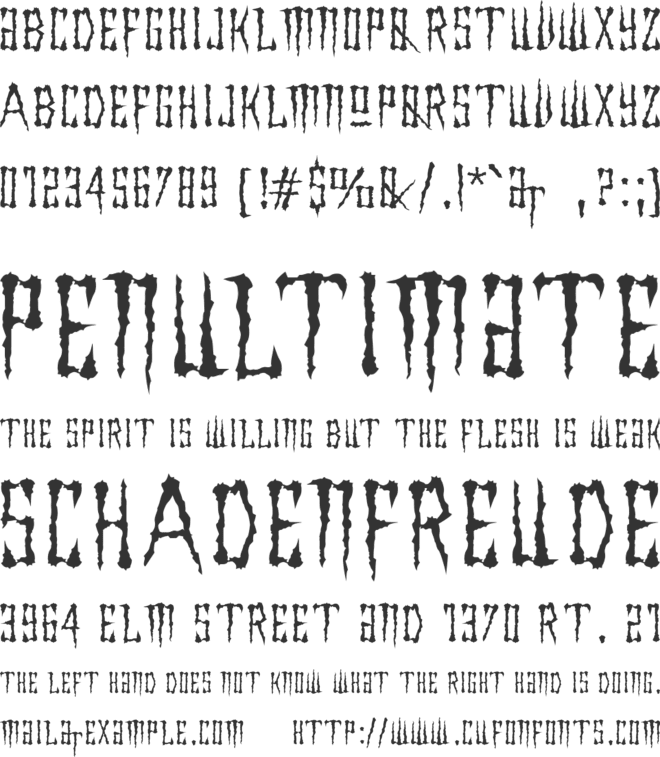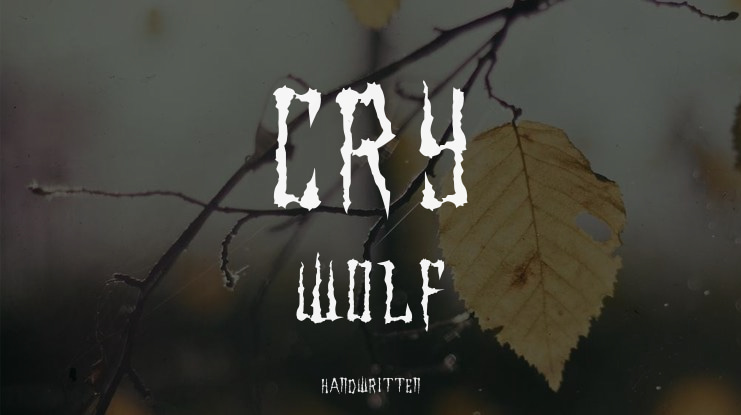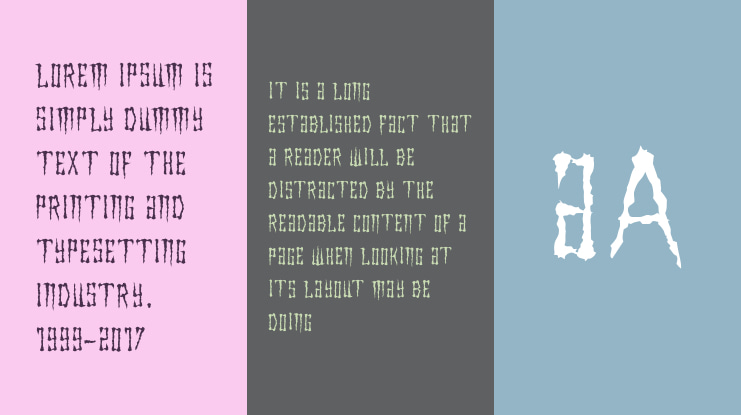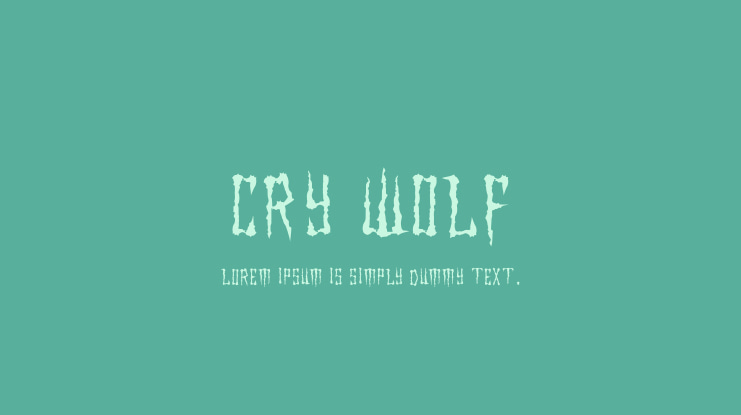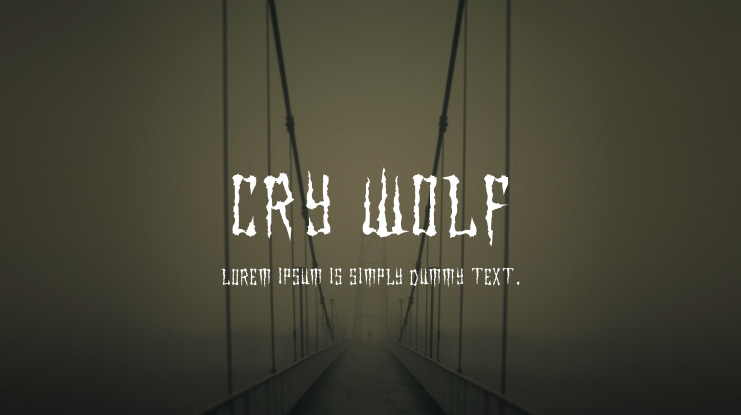
cry wolf Font
Inspired by the "Monster" logo, as lately, I've been relying on Monster drinks. Plain caffeine no longer has any effect on me.
The design includes special characters, numbers, and Greek symbols.